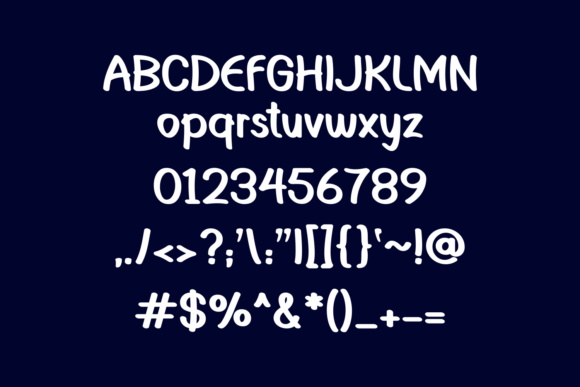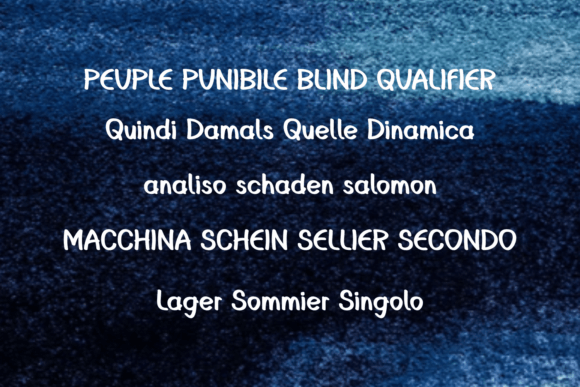
Amsaron Font: The Ultimate Guide to this Stunning Sans Serif Font
Amsaron is a cool and unique sans serif font that has been making waves in the design community. With its incredibly distinct and timeless style, it’s no wonder that designers and crafters are falling in love with this font. In this article, we’ll dive into the world of Amsaron Font, exploring its features, benefits, and uses, as well as provide tips and inspiration for incorporating it into your designs.
What is Amsaron Font?
Amsaron is a sans serif font, which means that it doesn’t have the small lines or flourishes that are characteristic of serif fonts. Instead, Amsaron features clean, simple lines and a modern aesthetic that makes it perfect for a wide range of design applications. Whether you’re creating a logo, brochure, or social media graphic, Amsaron is a versatile font that can help you achieve a professional and stylish look.
Key Features of Amsaron Font
So, what makes Amsaron Font so special? Here are just a few of its key features:
- Unique and Distinctive Style: Amsaron has a one-of-a-kind look that sets it apart from other sans serif fonts. Its clean lines and simple shapes make it easy to read and recognize.
- Timeless Appeal: Unlike trendy fonts that quickly go out of style, Amsaron has a timeless quality that ensures it will remain relevant for years to come.
- Highly Versatile: Amsaron can be used for a wide range of design applications, from print materials like brochures and posters to digital projects like social media graphics and website headers.
- Easily Customizable: Amsaron is highly customizable, making it easy to adjust the font to suit your design needs.
Benefits of Using Amsaron Font
So, why should you choose Amsaron Font for your next design project? Here are just a few benefits of using this amazing font:
- Stand Out from the Crowd: With its unique and distinctive style, Amsaron can help your designs stand out from the competition.
- Professional and Sophisticated Look: Amsaron’s clean lines and simple shapes give it a professional and sophisticated look that’s perfect for businesses and brands.
- Easily Readable: Amsaron is highly legible, making it easy for your audience to read and understand your message.
- Cross-Platform Compatibility: Amsaron is compatible with a wide range of devices and platforms, ensuring that your designs look great no matter where they’re viewed.
Using Amsaron Font in Your Designs
Now that we’ve explored the features and benefits of Amsaron Font, let’s talk about how to use it in your designs. Here are a few tips and inspiration to get you started:
- Pair it with Other Fonts: Amsaron looks great when paired with other fonts, such as serif fonts or script fonts. Experiment with different combinations to find the perfect look for your design.
- Use it for Headings and Titles: Amsaron’s bold and distinctive style makes it perfect for headings and titles. Use it to add visual interest and emphasize key points in your design.
- Experiment with Colors and Textures: Amsaron looks great in a variety of colors and textures. Experiment with different effects to add depth and interest to your design.
Inspirational Examples of Amsaron Font in Use
Still not sure how to use Amsaron Font in your designs? Here are a few inspirational examples to get you started:
- Logos and Branding: Amsaron’s unique and distinctive style makes it perfect for logos and branding. Use it to create a memorable and recognizable brand identity.
- Posters and Flyers: Amsaron’s bold and eye-catching style makes it perfect for posters and flyers. Use it to grab attention and communicate key information.
- Social Media Graphics: Amsaron’s clean and simple style makes it perfect for social media graphics. Use it to create engaging and shareable content.
In conclusion, Amsaron Font is a cool and unique sans serif font that’s perfect for designers and crafters. With its incredibly distinct and timeless style, it’s no wonder that Amsaron is becoming a favorite among designers. Whether you’re creating a logo, brochure, or social media graphic, Amsaron is a versatile font that can help you achieve a professional and stylish look. So why not give it a try and see the amazing results for yourself?